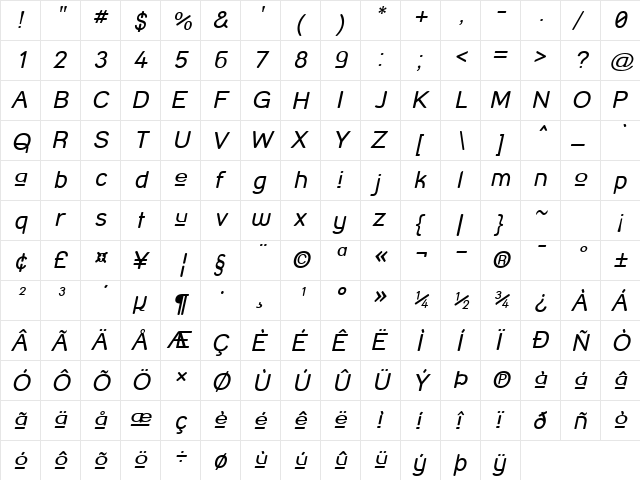
Street Corner Upper Oblique Regular
Design Context for Street Corner Upper Oblique Typeface
Street Corner Upper Oblique is a composed and adaptable typeface that performs quietly and consistently across a wide range of design contexts. The slanted form adds forward momentum and visual energy.
Pro Tip: Use Street Corner Upper Oblique for emphasis, pull quotes, and subheadings where its slanted energy can add rhythm to the layout.